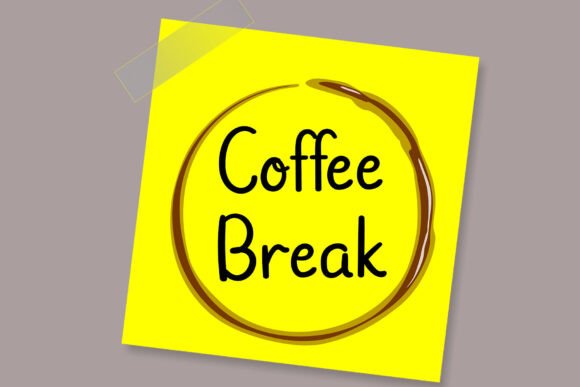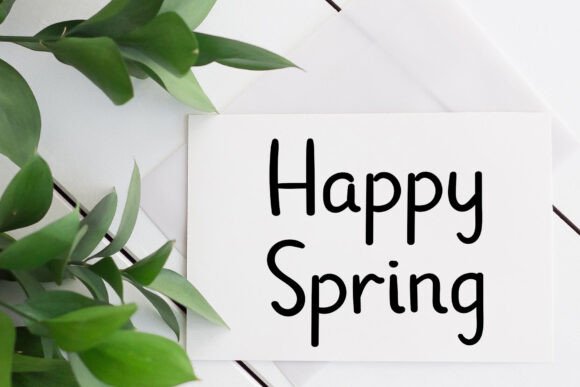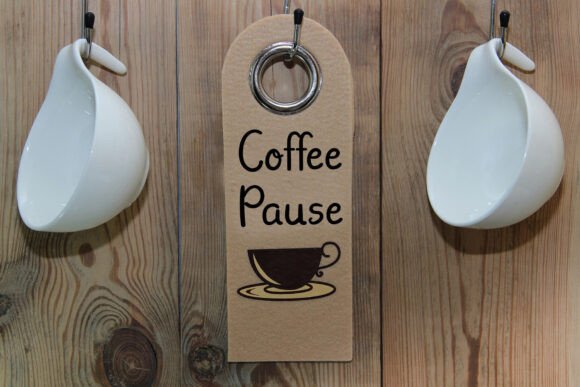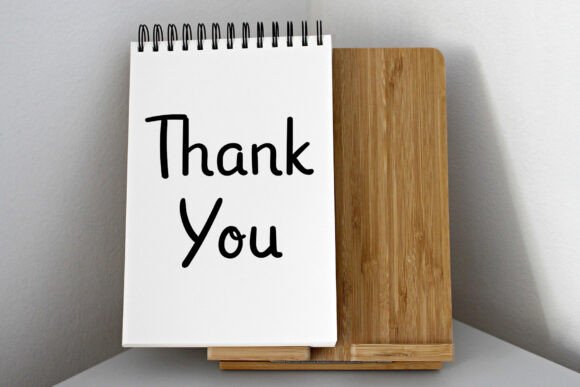
Discover the Elegance of Happy Merchant Font: Elevate Your Designs with a Professional Touch
In the world of digital design, fonts play a pivotal role in conveying messages, evoking emotions, and adding a personal touch to projects. Among the myriad of fonts available, the Happy Merchant font stands out as a unique and elegant choice, specially crafted to meet the needs of designers, crafters, and anyone looking to add a professional flair to their work. This article explores the features, benefits, and applications of the Happy Merchant font, making a compelling case for why it should be a part of your design toolkit.
The Essence of Happy Merchant Font
Happy Merchant is not just another font; it’s a design element that brings a professional hand touch to your projects. Its uniqueness lies in its elegant and distinctive style, which is versatile enough to be used across various platforms and projects. Whether you’re working on a wedding invitation, a birthday card, or any other form of greeting, this font adds a touch of sophistication and charm.
Crafting Excellence: Features of Happy Merchant Font
One of the standout features of the Happy Merchant font is its meticulous craftsmanship. It’s designed to be comprehensive, including all glyphs without the need for additional applications. This means that users have access to a wide range of characters, symbols, and ligatures, making it incredibly versatile for various design needs.
The font’s design ensures that it is:
- Highly Versatile: Suitable for a myriad of projects, from formal to casual, including wedding invitations, birthday cards, and more.
- Professionally Crafted: Offers a unique, elegant, and professional look that elevates the quality of your designs.
- User-Friendly: Easy to use and integrate into your projects, compatible with various design software.
- Comprehensive: Includes all glyphs, ensuring that you have everything you need at your fingertips.
Applications of Happy Merchant Font
The Happy Merchant font’s adaptability makes it an excellent choice for a wide array of applications. Here are some of the areas where it truly shines:
Wedding and Event Invitations
For wedding invitations, anniversaries, birthdays, or any celebratory event, the Happy Merchant font adds a touch of elegance and sophistication. Its unique style can help set the tone for the event, making your invitations stand out.
Creative School Projects
Students and educators can also benefit from using the Happy Merchant font in school assignments and projects. It can add a professional touch to presentations, posters, and reports, making them more engaging and visually appealing.
Digital and Print Media
In the realm of digital content creation, the Happy Merchant font can be used in blog headers, social media graphics, and video overlays. For print media, it’s perfect for brochures, flyers, and business cards, offering a distinctive look that captures attention.
How to Make the Most of Happy Merchant Font
To truly leverage the potential of the Happy Merchant font, consider the following tips:
- Experiment with Sizes and Colors: Play around with different sizes and color schemes to see what works best for your project.
- Mix and Match: Don’t be afraid to combine the Happy Merchant font with other fonts to create a unique visual hierarchy.
- Consider Your Audience: Tailor your font choices to your audience’s preferences and the message you want to convey.
The Happy Merchant font is a valuable asset for anyone involved in design, crafting, or content creation. Its unique blend of elegance, professionalism, and versatility makes it an ideal choice for a wide range of projects. By incorporating the Happy Merchant font into your design toolkit, you’re not just adding another font; you’re elevating the quality and impact of your work. So, explore the possibilities of Happy Merchant font today and discover how it can transform your designs.